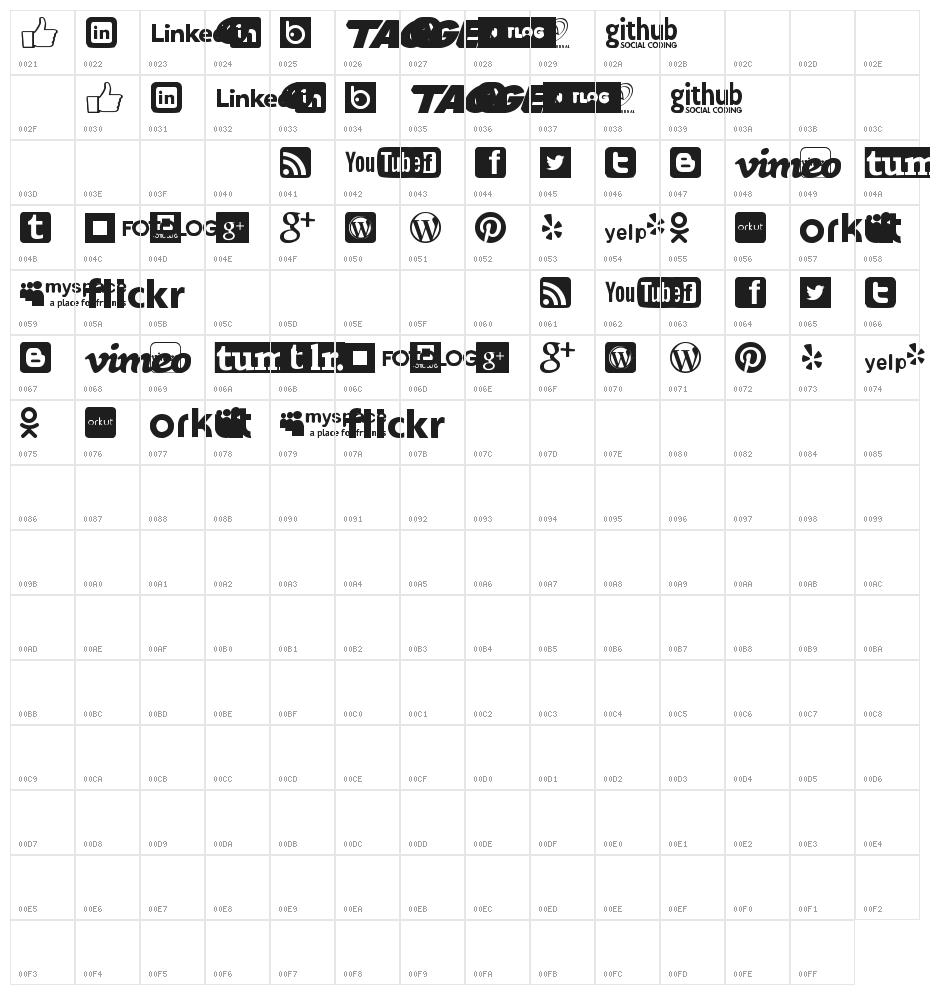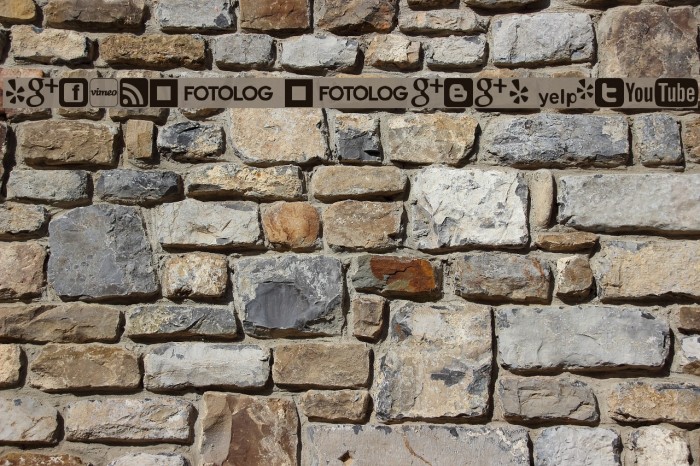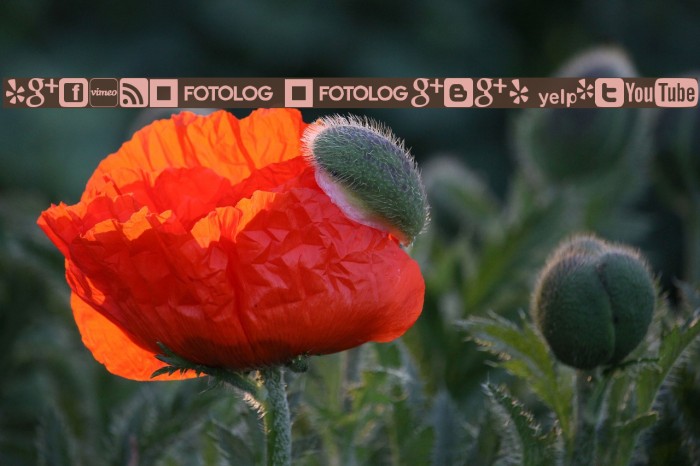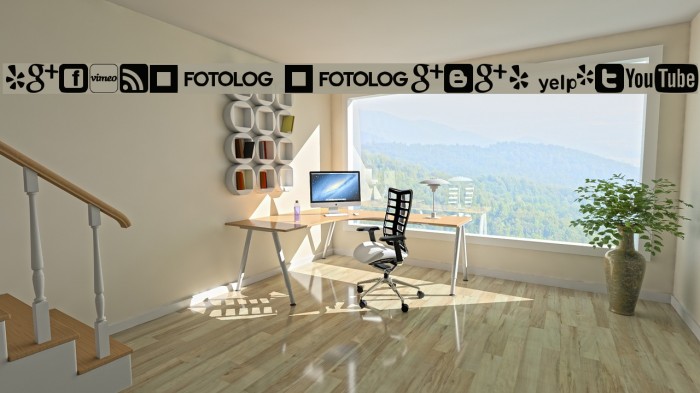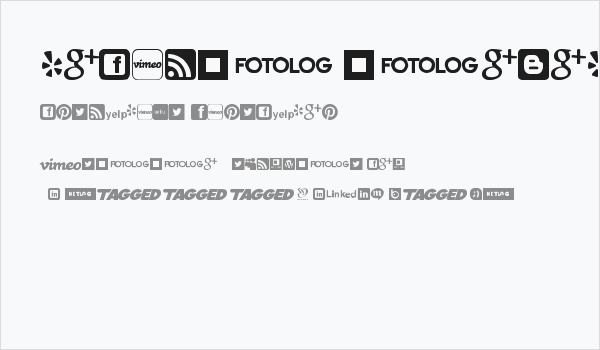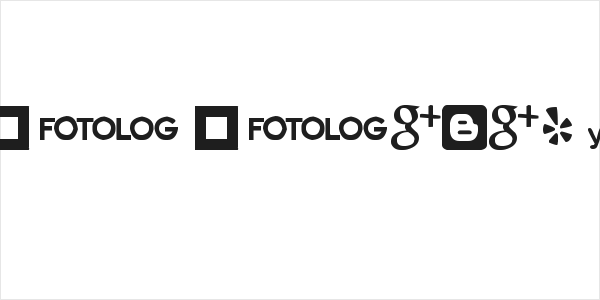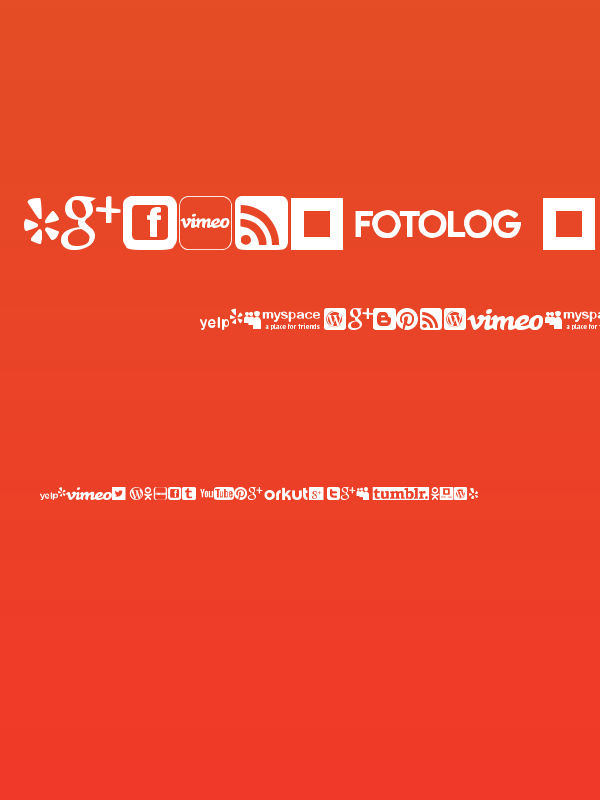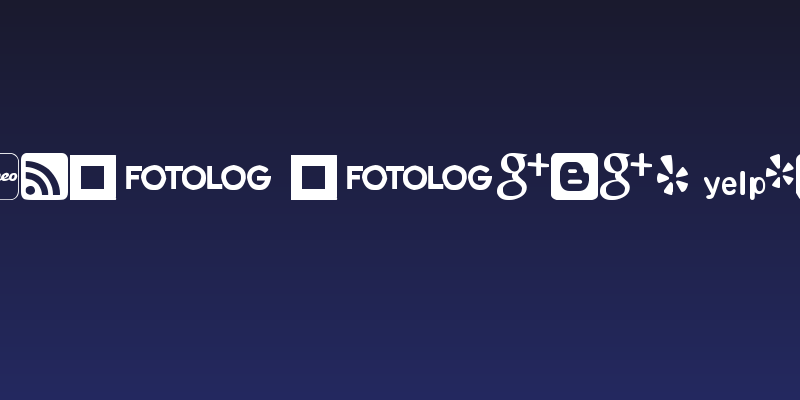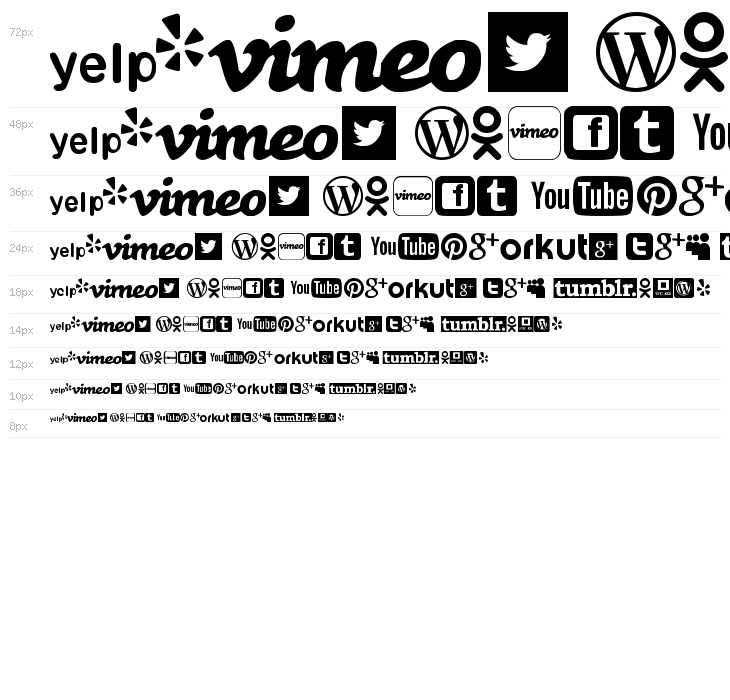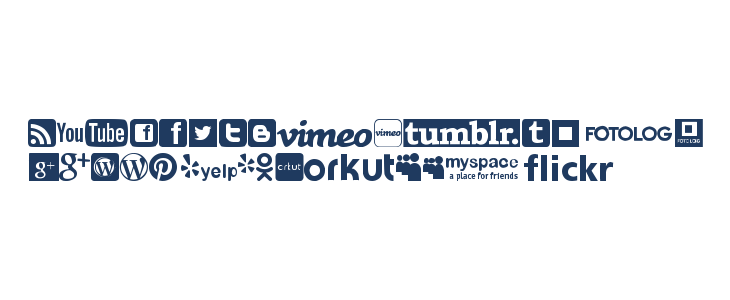
Social logos tfb Font
Social logos tfb Description
This collection features a variety of social media logos and icons, each designed with a distinct style that reflects the brand identity of the respective platforms. The logos are predominantly monochrome, utilizing black and white to maintain a clean and professional appearance. Each icon is crafted to be easily recognizable, with unique shapes and typography that align with the branding of platforms such as YouTube, Facebook, Twitter, Vimeo, Tumblr, and more. The designs are versatile, suitable for both digital and print media, ensuring consistency across different applications. The icons are compact and well-spaced, allowing for easy integration into various design projects.
| Use Case | Logos, Icons, Branding |
| Proposed Projects | Ideal for use in website design, app interfaces, marketing materials, and social media campaigns. |